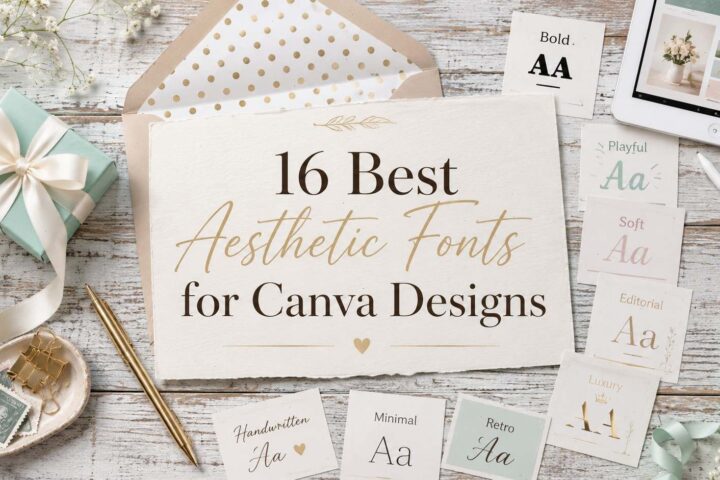
16 Soft Aesthetic Fonts: Beautiful Picks for Feminine Designs
Soft Fonts That Create a Feminine Aesthetic The strongest soft aesthetic fonts feel gentle without losing clarity or visual structure. They often rely on rounded letterforms, relaxed handwritten strokes, graceful curves, or